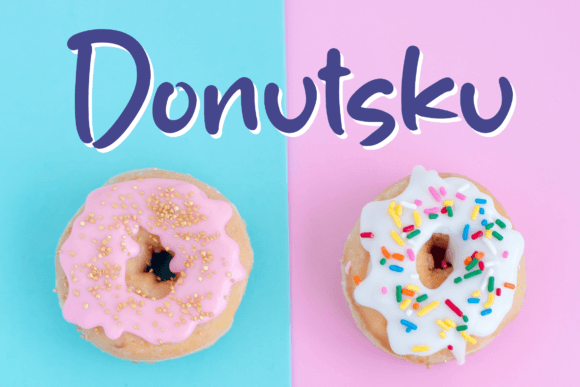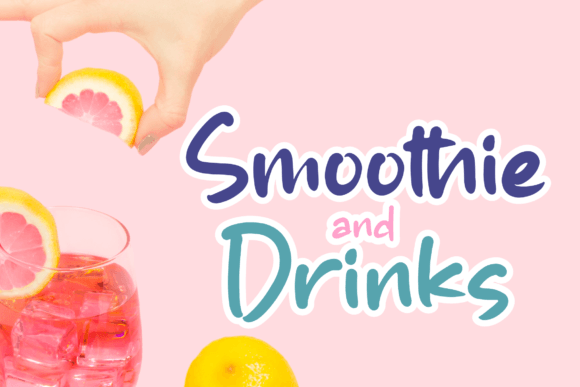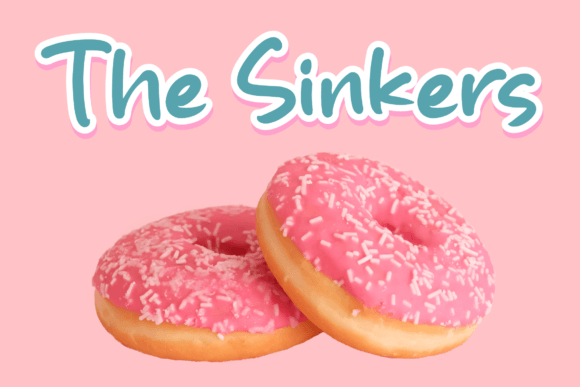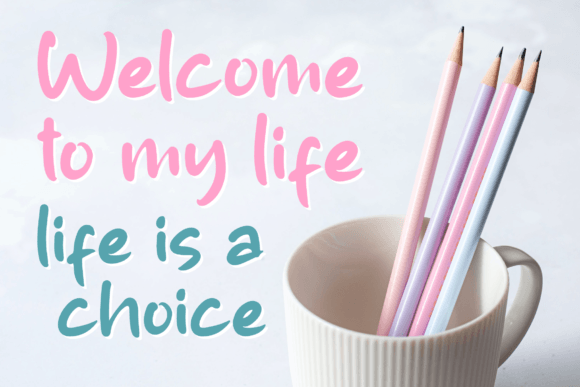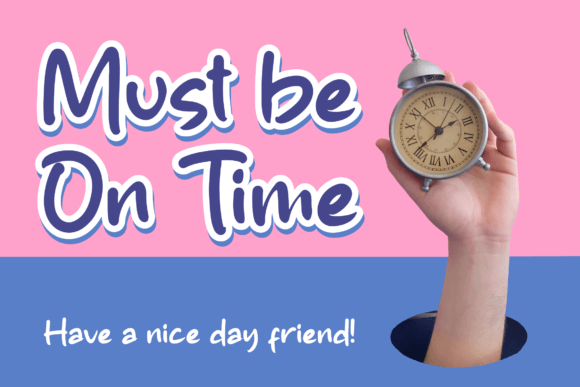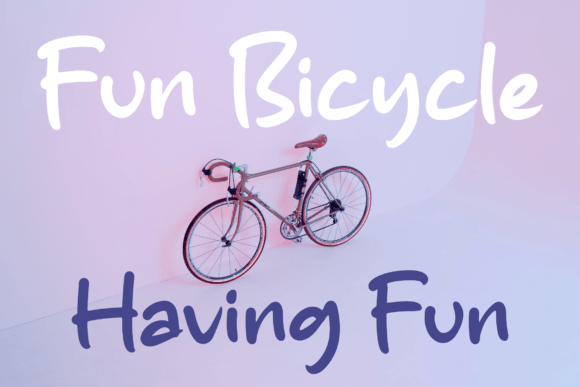
Introduction to Pasthelo Font
As you sit at your desk, surrounded by scraps of paper, abandoned coffee cups, and half-finished sketches, the creative spark finally hits. You envision the perfect logo, the one that perfectly captures the essence of your brand and leaves a lasting impression on your audience. This is where the magic of the Pasthelo Font comes in – a quirky handwritten font that adds a touch of whimsy and elegance to any design project.
The Pasthelo Font is more than just a design resource; it’s a game-changer for designers looking to add a unique touch to their creative projects. With its high-quality, free download option, you can experiment with different layouts and styles without breaking the bank. Whether you’re working on a logo, branding project, or product packaging, this font is sure to elevate your design to the next level.
One of the standout features of the Pasthelo Font is its transparent background, making it perfect for photography, watermark, and other design applications where a subtle touch is needed. With its versatility and high-quality design, the Pasthelo Font is an invaluable addition to any designer’s toolkit, and we’re excited to dive deeper into its features and benefits in this article.
Key Features of Pasthelo Font
- High-quality design resource with a transparent background, perfect for creative projects
- Unique and creative font style, ideal for designers looking for a distinctive typography
- High-resolution font, suitable for both print and digital use, with a resolution of 300 DPI
- Comes in a single font size, with no variations, for a clean and consistent look
Honest Review: Pasthelo Font
I recently stumbled upon the Pasthelo Font and I must say it’s been a game-changer for my creative projects. The free download is a huge plus, making it accessible to designers of all levels.
The font is incredibly versatile and can be used for a wide range of design resources, from logos to web graphics. Its high quality and unique aesthetic make it a standout choice for any project.
- ✨ Versatile and can be used for various design resources
- ✨ Transparent background makes it easy to customize
- ⚠️ Limited character set, which may not be suitable for extended text-based projects
- ⚠️ Not all characters may be available in certain font sizes
Overall, I’m thoroughly impressed with the Pasthelo Font and would highly recommend it to fellow designers. Its unique design and high quality make it a valuable addition to any design resource collection.
Pasthelo Font
Pasthelo Font is a high-quality design resource available for free download. Its transparent background makes it perfect for creative projects that require a touch of elegance.
Tips for Getting the Most Out of Pasthelo Font
1. Experiment with different font sizes and colors to create a visually appealing design.
2. Use the transparent background to create a sense of depth and dimension in your project.
Alternatives to Pasthelo Font
Open Sans is a highly legible and versatile font suitable for a wide range of creative projects, including digital design, print media, and web development. It’s available for free download and is ideal for body text, headings, and titles. When to use: For clear and readable typography in high-quality design resources.
Comparison to Pasthelo Font: Open Sans offers a more neutral and clean design compared to the more playful and creative style of Pasthelo Font.
Lato is a modern sans-serif font designed for high-quality design resources and creative projects. It features a clean and elegant design, making it suitable for both digital and print media. When to use: For modern and sophisticated typography in design resources with transparent backgrounds.
Comparison to Pasthelo Font: Lato offers a more minimalist and refined design compared to the more artistic and expressive style of Pasthelo Font.